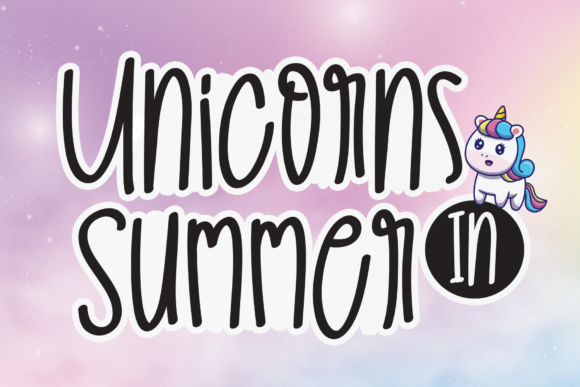
Embrace the magic and whimsy of Unicorns in Summer, a captivating script font that dances with delight across your designs. Let your imagination run wild as this enchanting font weaves its charm into your creative endeavors.
With its playful and carefree spirit, Unicorns in Summer is the perfect companion for children's projects, where dreams and laughter intertwine. Its whimsical strokes add a touch of enchantment to apparel designs, making each piece a unique expression of joy and wonder.
Step into a world of imagination with Unicorns in Summer. Let your designs blossom with its playful charm and immerse yourself in the magic of creativity.